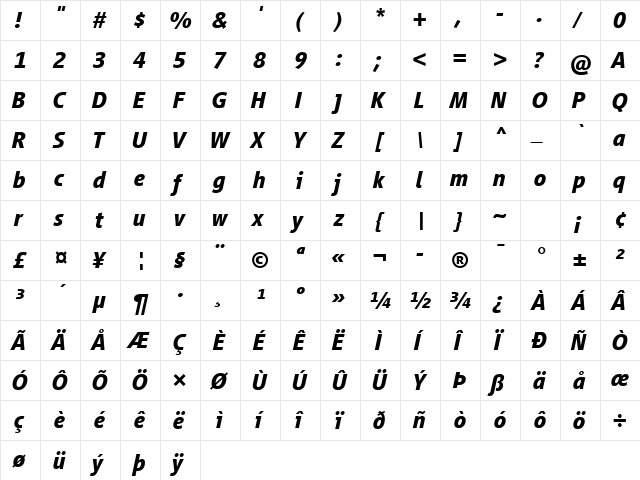
Vialog LT Com Bold Italic Font Preview
| Foundry | Linotype GmbH |
| Designer | Werner Schneider |
Design Context for Vialog LT Com Typeface
Vialog LT Com takes a measured approach to typography — its balanced proportions and neutral character make it a reliable workhorse for both digital and print work. The dynamic lean of this cut emphasises speed and emphasis in any layout. Its bold stroke weight gives it real presence on the page.
Pro Tip: Try Vialog LT Com for annotation and caption copy alongside an upright companion — the contrast in angle creates a dynamic but ordered typographic system.